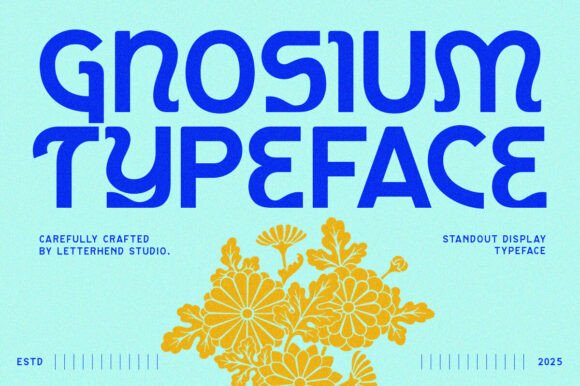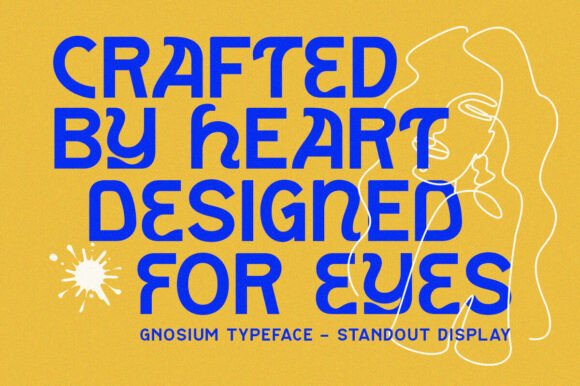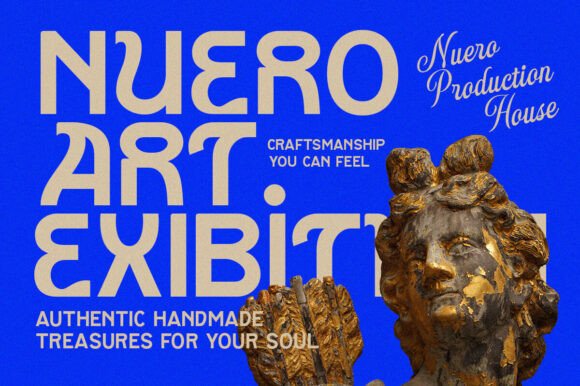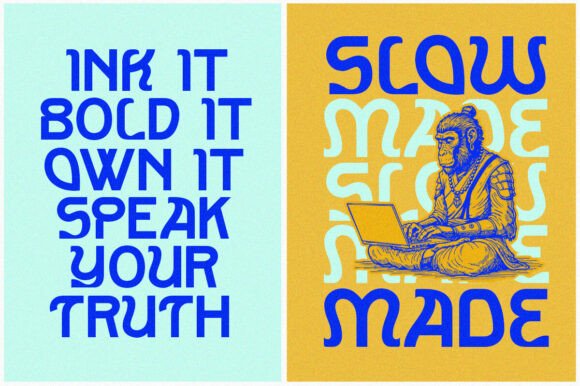
Gnosium Typeface Font
About the Gnosium Typeface Font
Experience the unique personality of Gnosium Typeface Font, a font designed for impact. Gnosium Typeface is a bold and artistic display font designed to make a striking impact. With its futuristic curves, geometric cuts, and playful letterforms, this typeface is perfect for modern branding, posters, editorial headlines, and creative visual projects. It radiates a retro-futuristic vibe while maintaining strong legibility and a unique character in every glyph.
Gnosium excels in headlines, posters, and short impactful statements, making it ideal for branding projects needing a bold, memorable presence. Its strong forms also work well on packaging where immediate visual impact is crucial. However, its highly stylized nature makes it unsuitable for body text or UI elements where readability over long stretches is paramount.
Consider pairing Gnosium with a clean sans-serif like Open Sans for body copy or a geometric sans-serif like Futura for a balanced, modern feel. For a more playful contrast, a rounded sans-serif could work well. Avoid pairing it with other highly decorative fonts, which might create visual clutter.
Gnosium’s personality is energetic and futuristic, yet retains a level of sophistication. It is best suited for brands projecting innovation, technology, or a retro-futuristic aesthetic. Its bold character is not ideal for projects requiring subtlety or a classic, timeless feel.
Gnosium Typeface Font Example